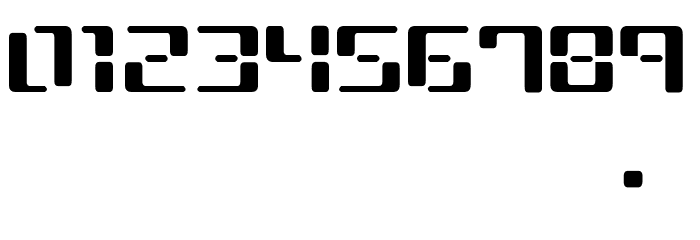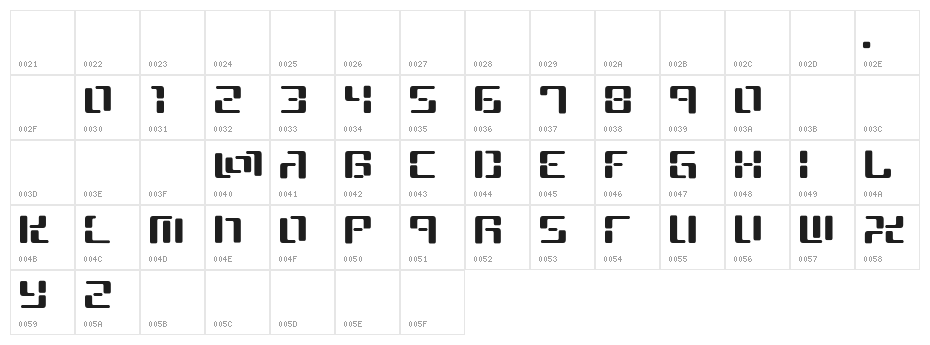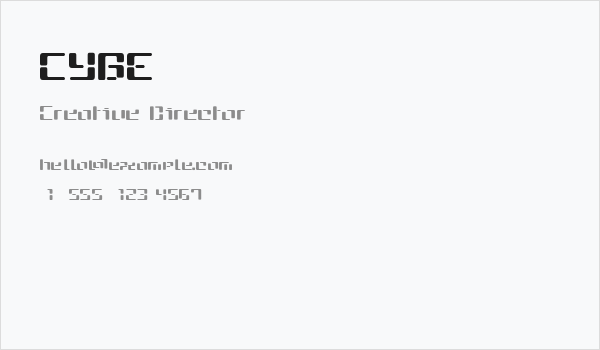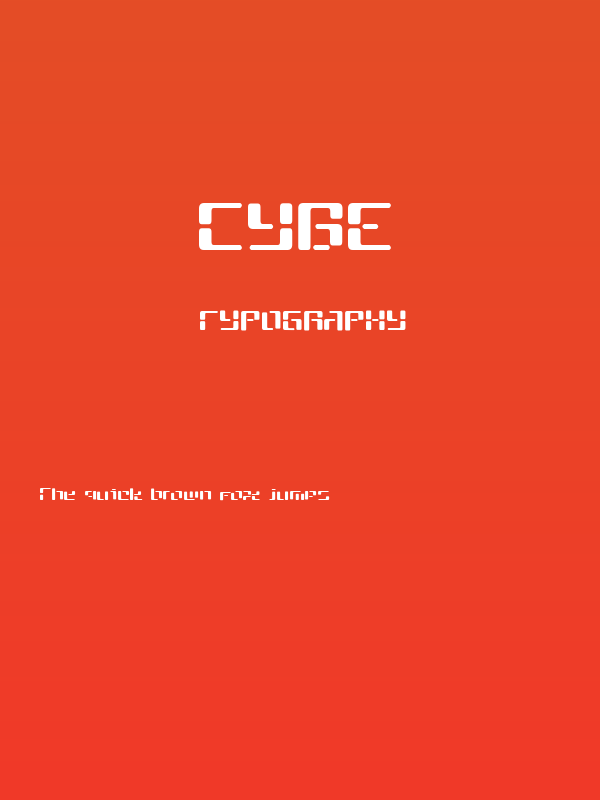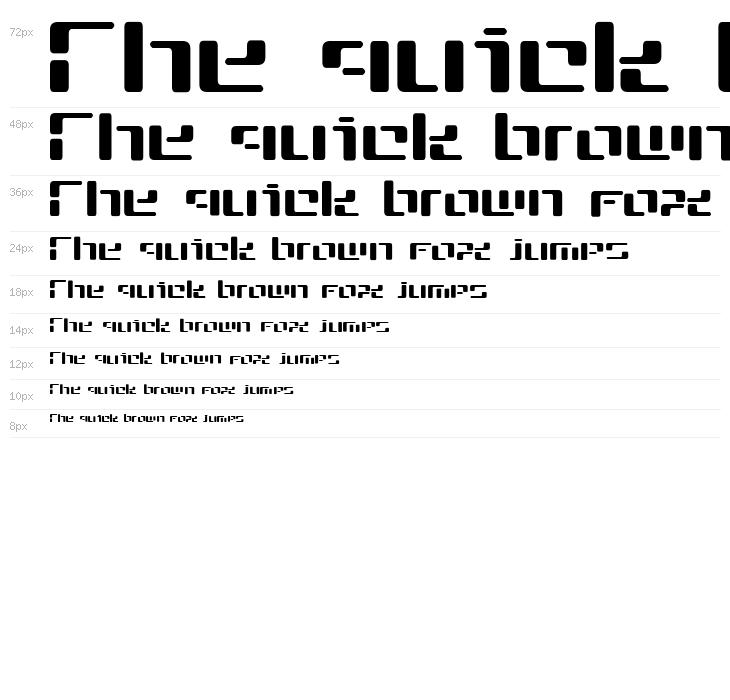
CYBE Font
CYBE Description
This font features a futuristic and digital aesthetic, characterized by its geometric and modular design. The letters are constructed with a combination of straight lines and rounded edges, creating a unique and modern look. The font maintains a consistent height across all characters, with a uniform width that gives it a monospaced appearance. The use of negative space within the characters adds to its digital feel, making it ideal for tech-related projects. The numbers and special characters follow the same design principles, ensuring a cohesive look throughout.
| Proposed Projects | Ideal for technology branding, digital interfaces, video game design, and sci-fi themed projects. |